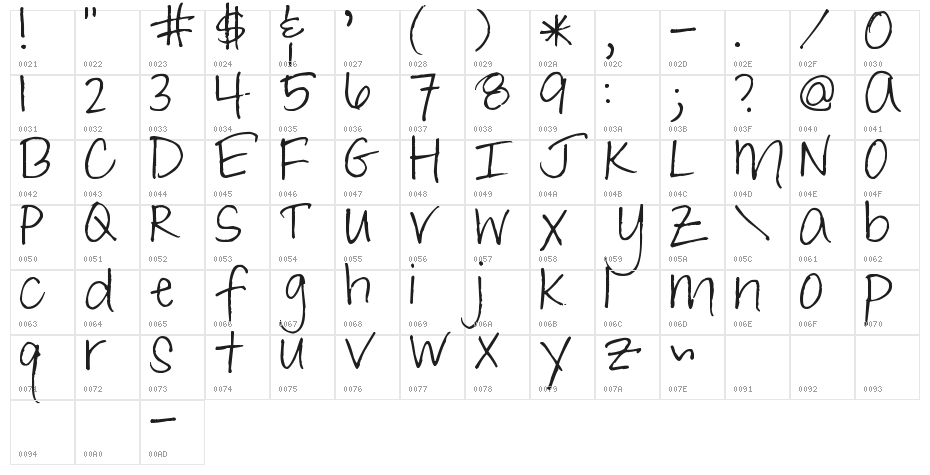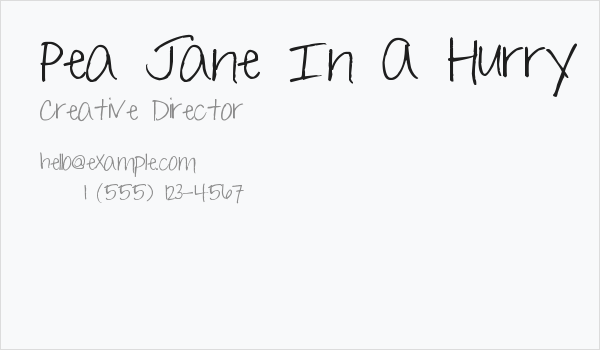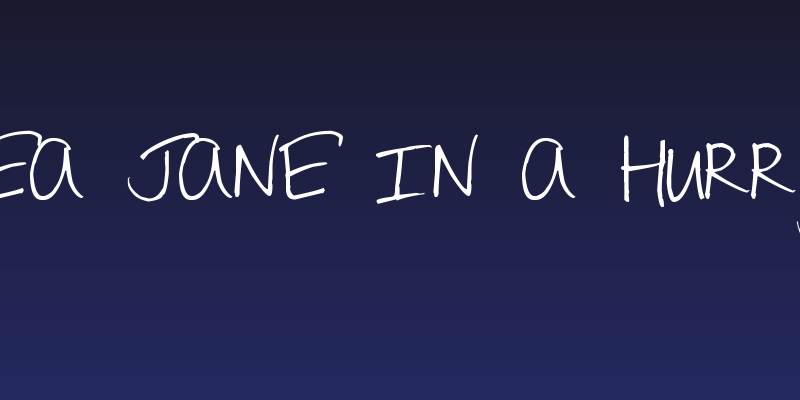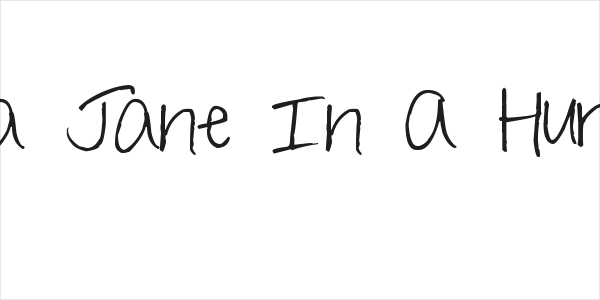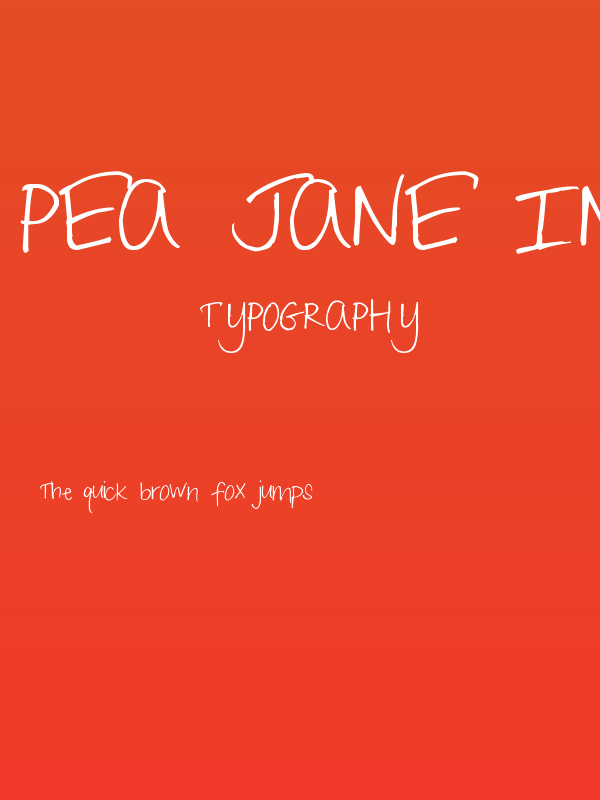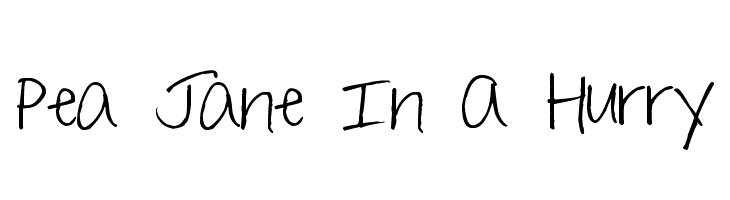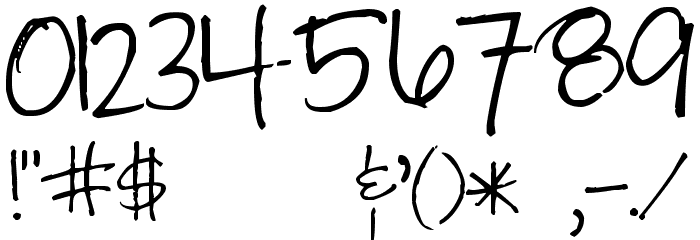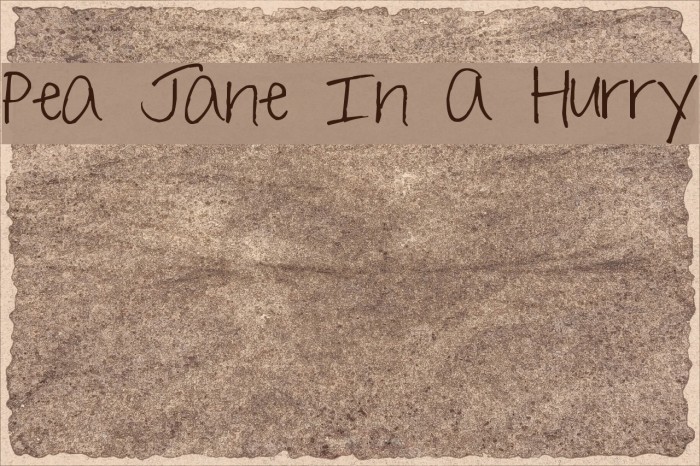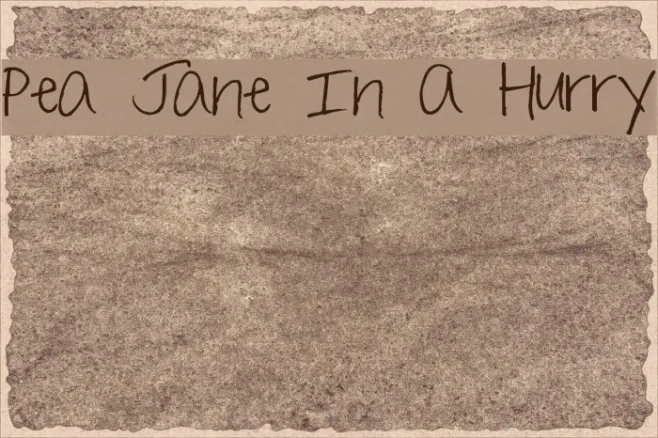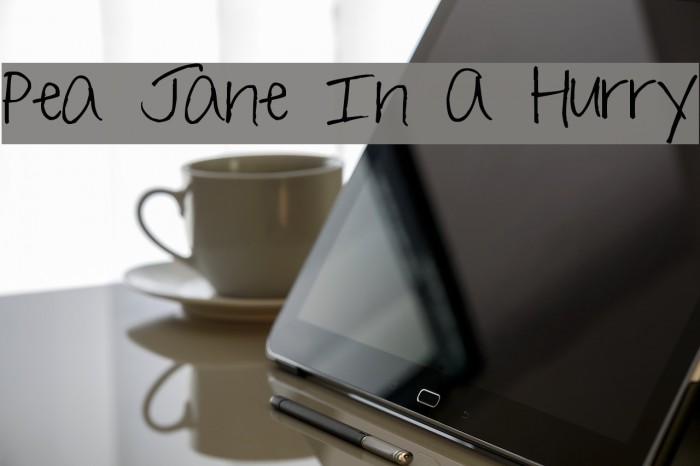
Pea Jane In A Hurry Font
Pea Jane In A Hurry Description
This font exudes a casual, handwritten style that mimics the natural flow of quick penmanship. The characters are slightly irregular, adding a personal and informal touch. The uppercase and lowercase letters maintain a consistent style, with rounded edges and a playful, energetic feel. The numbers and special characters follow the same aesthetic, ensuring a cohesive look across all text. This font is perfect for projects that require a personal, human touch, such as greeting cards, personal notes, or informal branding materials.
| Overall Style | Casual, Playful |
| Use Case | Logos, Headlines, Informal Text |
| Proposed Projects | Ideal for greeting cards, personal notes, informal branding, and creative projects. |